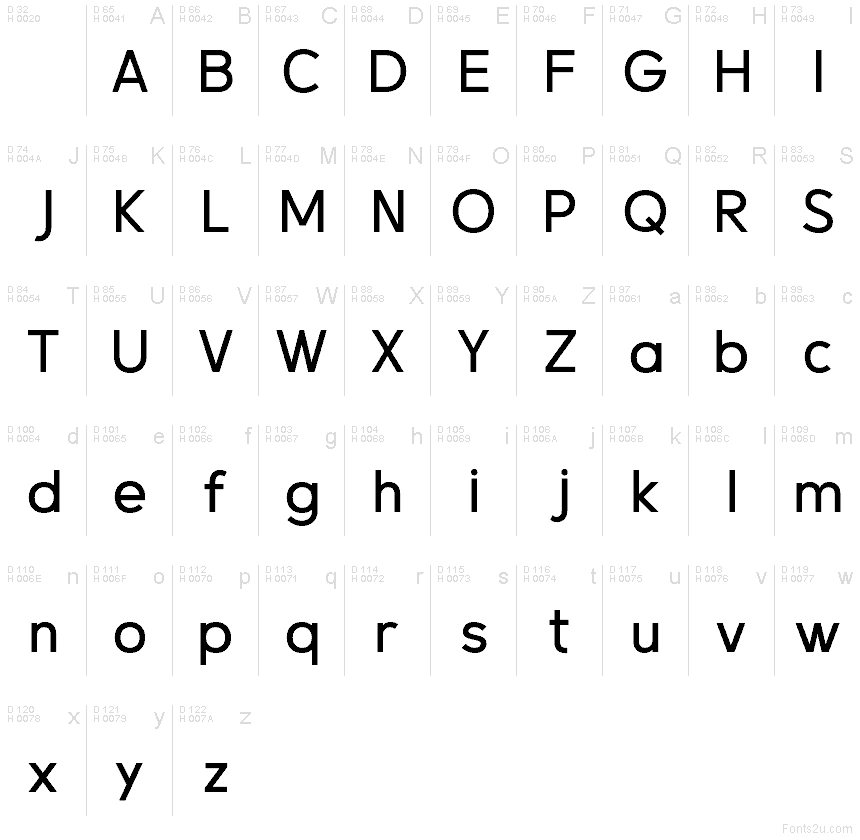
CS Galileo Regular Demo
CS Galileo font by Craft Supply Co. is a free regular geometric sans serif font that solves the classic “friendly vs. futuristic” dilemma. Its low-contrast strokes, circular bowls, and softly rounded terminals give it a crisp, calibrated rhythm without feeling clinical. Generous counters keep it airy at display sizes, while the tight, even spacing holds lines together so headlines read clean and confident.
Using CS Galileo, you’ll get a natural fit for tech branding, startup landing pages, posters, product packaging, signage, and editorial pull quotes. This free font shines on bold hero lines and tagline stacks, where its smooth geometry projects clarity with warmth. Simple tip: pair it with a readable humanist sans for body text, or add a touch of tracking for standout headlines.